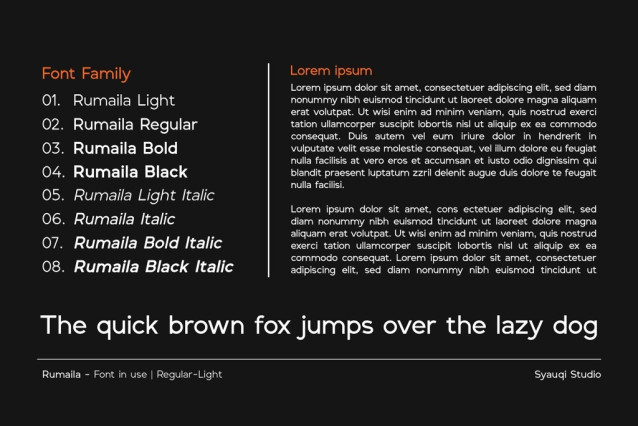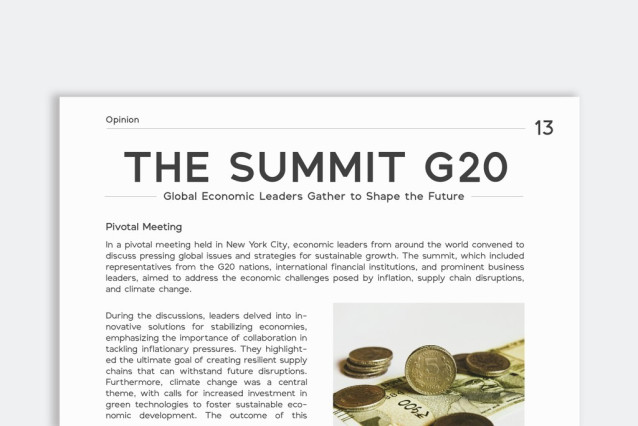
Rumaila Font
Rumaila Font, a modern sans-serif font that embodies clarity and sophistication. With its clean lines and balanced proportions, Rumaila enhances any design, making it perfect for branding, digital content, and print media.